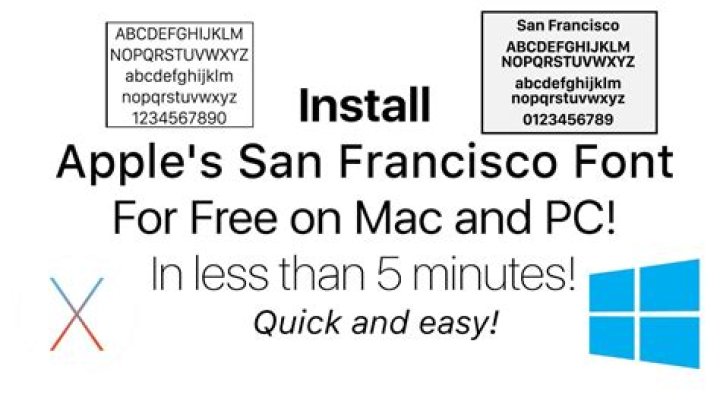
I'd like to use the new San Francisco font on a site. I've tried:
font: 'San Francisco', Helvetica, Arial, san-serif; to no avail. I have tried the answers to this question, but @font-face is not the solution here.
Apple's new system font is not publicly exposed. Apple has started abstracting system font names:
The motivation for this abstraction is so the operating system can make better choices on which face to use at a given weight. Apple is also working on font features, such as selectable “6″ and “9″ glyphs or non-monospaced numbers. It’s my guess that they’d like to bring these features to the web, as well.
Safari and Firefox use SF for -apple-system; Chrome recognizes BlinkMacSystemFont:
body { font-family: -apple-system, BlinkMacSystemFont, sans-serif; } There are also other variations:
font-family: -apple-system-body font-family: -apple-system-headline font-family: -apple-system-subheadline font-family: -apple-system-caption1 font-family: -apple-system-caption2 font-family: -apple-system-footnote font-family: -apple-system-short-body font-family: -apple-system-short-headline font-family: -apple-system-short-subheadline font-family: -apple-system-short-caption1 font-family: -apple-system-short-footnote font-family: -apple-system-tall-body You can demo these at the following fiddle; most are not supported yet:
And apparently Apple is working with the W3C to standardize using a generic "system" font name in CSS.
7None of the current answers including the accepted one will use Apple's San Francisco font on systems that don't have it installed as the system font. Since the question isn't "how do I use the OS X system font on a webpage" the correct solution is to use web fonts:
To address the question
How to use Apple's new San Francisco font on a webpage
font-family: -apple-system, system-ui, BlinkMacSystemFont; or (even shorter):
font-family: -apple-system, BlinkMacSystemFont; should suffice.
If you want to default to system font on multiple platforms, though, I'd suggest:
font-family: -apple-system, system-ui, BlinkMacSystemFont, "Segoe UI", Roboto, Ubuntu; -apple-system— San Francisco in Safari (on Mac OS X and iOS); Neue Helvetica and Lucida Grande on older versions of Mac OS X.system-ui— default UI font on a given platform.BlinkMacSystemFont— equivalent of-apple-system, for Chrome on Mac OS X."Segoe UI"— Windows (Vista+) and Windows Phone.Roboto— Android (Ice Cream Sandwich (4.0)+) and Chrome OS.Ubuntu— all versions of Ubuntu.
2-apple-system allows you to pick San Francisco in Safari. BlinkMacSystemFont is the corresponding alternative for Chrome.
font-family: -apple-system, BlinkMacSystemFont, sans-serif; Roboto or Helvetica Neue could be inserted as fallbacks even before sans-serif.
If the user is running El Capitan or higher, it will work in Chrome with
font-family: 'BlinkMacSystemFont'; 1This is an update to this rather old question. I wanted to use the new SF Pro fonts on a website and found no fonts CDN, besides the above noted (applesocial.s3.amazonaws.com).
Clearly, this isn't an official content repository approved by Apple. Actually, I did not find ANY official fonts repository serving Apple fonts, ready to be used by web developers.
And there's a reason - if you read the license agreement that comes with downloading the new SF Pro and other fonts from - it states in the first few paragraphs very clearly:
No more questions for me. Apple clearly does not want their Fonts shared across the web outside their products.
Original answer:
Work on macOS Chrome/Safari
body { font-family: '.SFNSDisplay-Regular', sans-serif; } 6Basically, this is what worked for me:
-apple-system, BlinkMacSystemFont, 'Segoe UI', Roboto, Oxygen, Ubuntu, Cantarell, 'Open Sans', 'Helvetica Neue', sans-serif P.S. This works on all systems.
font-family: 'SF Pro Text',-apple-system,BlinkMacSystemFont,Roboto,'Segoe UI',Helvetica,Arial,sans-serif,'Apple Color Emoji','Segoe UI Symbol'; It worked for me. ;)